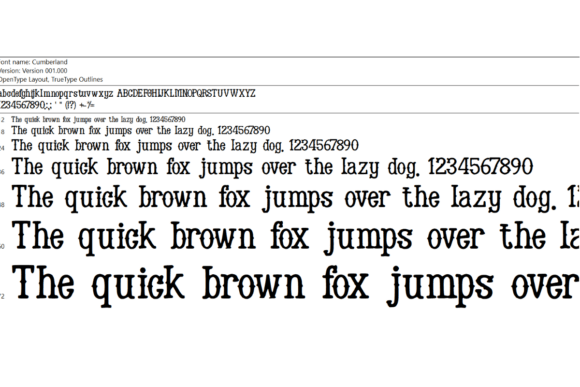
The Elusive Font: A Designer’s Quest for the Perfect Aesthetic
I’ll never forget the countless hours I spent scrolling through font libraries, searching for the perfect typeface to elevate my design project. My client was specific: they wanted a font that exuded elegance, yet had a playful twist. I tried font after font, but nothing seemed quite right – until I stumbled upon Cumberland.
This spellbinding decorative font has been a game-changer for my design endeavors, and I’m excited to share its magic with you. Brimming with vivacious energy, Cumberland is masterfully crafted to infuse your projects with a captivating allure that grabs attention and steals the show.
What I Love About Cumberland ✨
- ✅ Artful design: Cumberland’s unique style brings a touch of sophistication to any project.
- ✅ Versatility: Perfect for on-screen or print use, this font adapts seamlessly to different mediums.
- ✅ Attention-grabbing: Cumberland’s stylized letters turn your work into an irresistible masterpiece.
- ✅ Easy to read: Despite its decorative nature, Cumberland remains surprisingly legible.
- ⚠️ Limited use in body text: Cumberland shines in headlines and titles, but may not be the best choice for lengthy paragraphs.
- ⚠️ Requires careful pairing: To avoid visual overload, pair Cumberland with a complementary font that’s simple and clean.
The Story Behind Cumberland: Designer Inspiration
Cumberland’s creator drew inspiration from classic typography and modern design trends. The font’s unique blend of elegance and playfulness makes it perfect for designers looking to add a touch of sophistication to their work. While the true story behind Cumberland remains a mystery, its design is undoubtedly a testament to the power of creative vision.
Q: What makes Cumberland suitable for on-screen use?
A: Cumberland’s artful design and clear letterforms ensure it remains legible even at smaller sizes, making it perfect for digital projects.
Q: How do I pair Cumberland with other fonts?
A: Pair Cumberland with simple, clean fonts to avoid visual overload. Experiment with different combinations to find the perfect balance for your design.
Q: Is Cumberland a difficult font to read?
A: Despite its decorative nature, Cumberland remains surprisingly legible. However, it’s best suited for headlines, titles, and short paragraphs rather than lengthy body text.